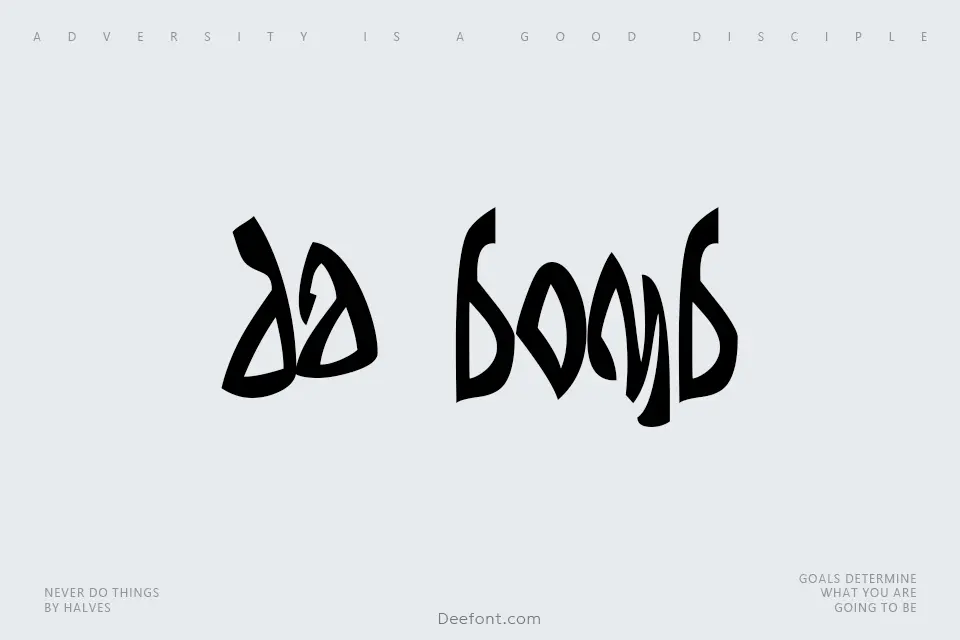
Da Bomb Font
Da Bomb is a vibrant graffiti font with a tropical feel, designed to bring urban style and creative energy to your projects. This dynamic typeface combines bold, expressive letterforms with playful character, making it ideal for eye-catching designs. Whether you’re creating posters, street art-inspired graphics, or casual creative work, Da Bomb delivers an authentic graffiti aesthetic that instantly elevates your visual content with its unique tropical-inspired charm and artistic flair.